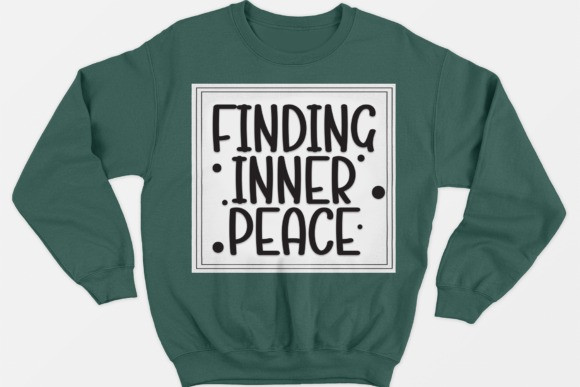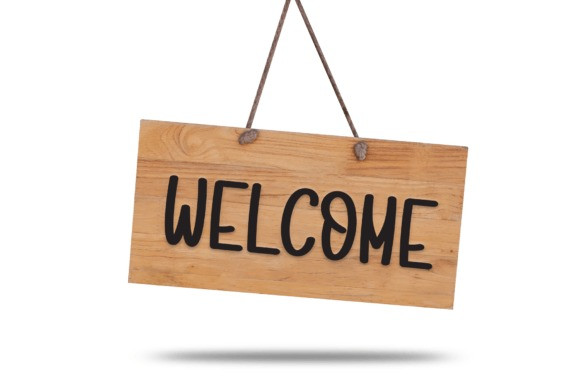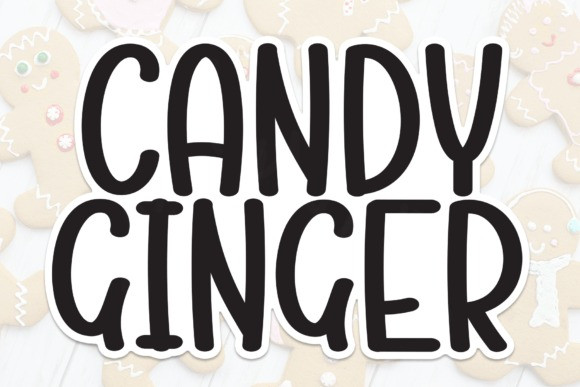
Candy Ginger Font
Candy Ginger Font, special creative products for you, our products will give you an extraordinary experience. the latest style letters are perfect for wall displays, wedding invitations, social media post logos, advertisements, product packaging, product designs, labels, photography, watermarks, invitations, stationery, and any project that requires taste handwriting.